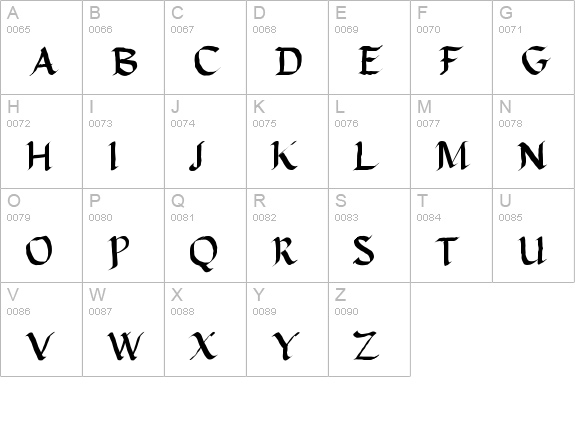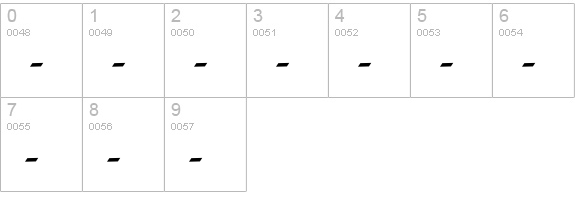
Calligraphy New Font Details
Introducing Calligraphy New font, a stunning and elegant typeface that brings a touch of sophistication to your designs. This exquisite font features intricate details and graceful curves that mimic the art of calligraphy, creating a timeless and refined look. Perfect for invitations, branding, and luxury projects, Calligraphy New font exudes a sense of class and beauty. What makes Calligraphy New font even more enticing is that it is available for free download at FontsMarket.com. Yes, you read that right - this gorgeous typeface can be yours at no cost, allowing you to elevate your designs without breaking the bank. Don't miss out on the opportunity to add this exquisite font to your collection and bring a touch of elegance to your projects. Download Calligraphy New font today and let your creativity soar!